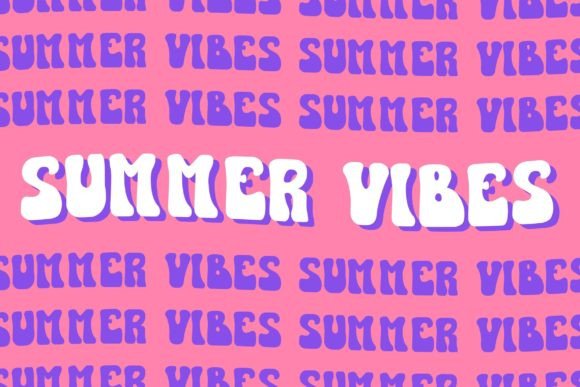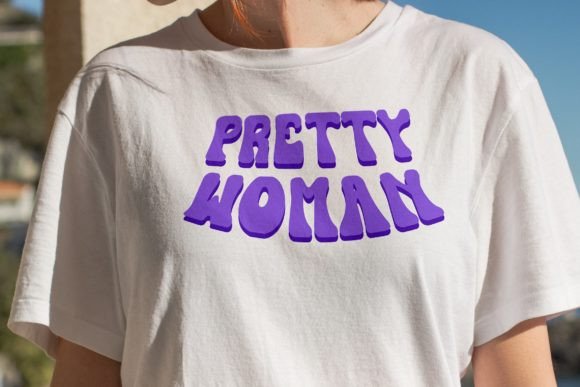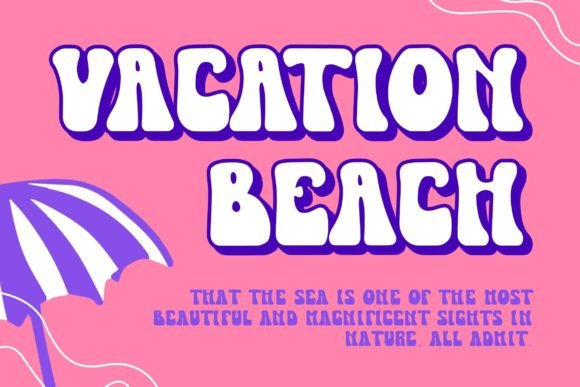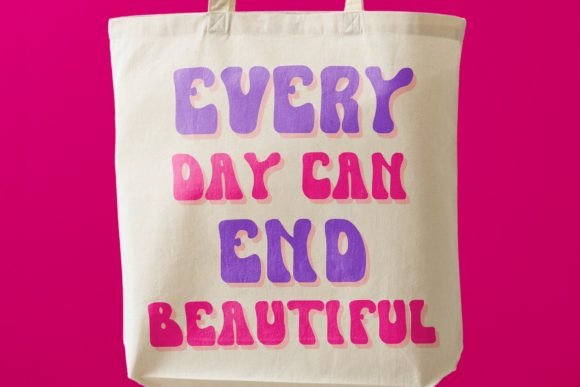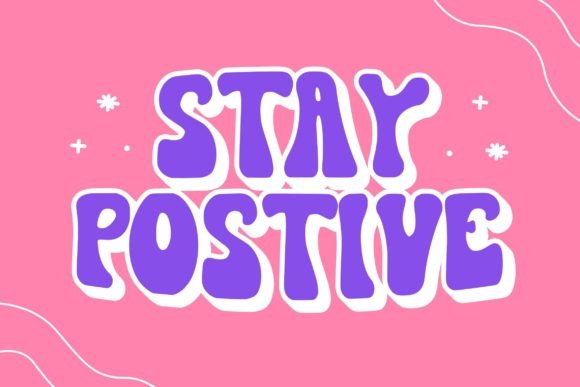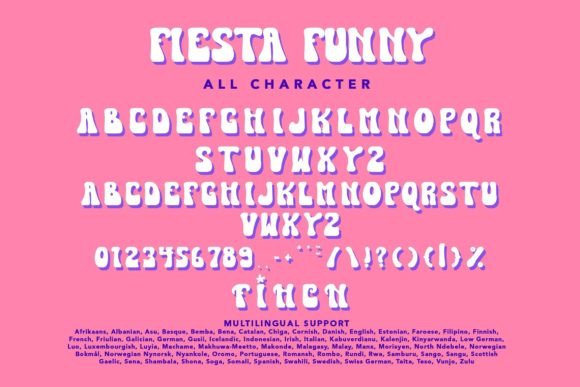
Introducing Fiesta Funny Font: The Groovy Retro Font Style for Your Creative Projects
Are you a designer or crafter looking for a unique and playful font to add a touch of personality to your projects? Look no further than Fiesta Funny Font, a groovy retro font style that’s perfect for a wide range of creative endeavors. With its distinctive handwritten characters, Fiesta Funny Font is sure to make your branding projects, logos, wedding designs, media posts, advertisements, product packaging, and more stand out from the crowd.
What Makes Fiesta Funny Font So Special?
Fiesta Funny Font is a one-of-a-kind font that’s been carefully crafted to bring a touch of whimsy and fun to your designs. Its handwritten characters are distinctive and full of personality, making it perfect for projects that need a bit of flair. Whether you’re working on a branding project, a wedding design, or a social media post, Fiesta Funny Font is sure to add a touch of playfulness and sophistication.
Fiesta Funny Font is incredibly versatile, making it perfect for a wide range of projects, including:
• Branding projects: Add a touch of personality to your brand with Fiesta Funny Font, perfect for logos, business cards, and more.
• Wedding designs: Make your wedding designs truly special with Fiesta Funny Font, perfect for invitations, stationery, and more.
• Media posts: Add a touch of fun and playfulness to your social media posts with Fiesta Funny Font.
• Advertisements: Make your ads stand out from the crowd with Fiesta Funny Font, perfect for print and digital ads.
• Product packaging: Add a touch of personality to your product packaging with Fiesta Funny Font.
• Product designs: Make your product designs truly special with Fiesta Funny Font, perfect for labels, tags, and more.
• Photography: Add a touch of whimsy to your photography with Fiesta Funny Font, perfect for watermarks and more.
• Invitations: Make your invitations truly special with Fiesta Funny Font.
• Stationery: Add a touch of personality to your stationery with Fiesta Funny Font.
Why Choose Fiesta Funny Font?
There are many reasons why Fiesta Funny Font is the perfect choice for your creative projects. Here are just a few:
• Unique and distinctive: Fiesta Funny Font is a one-of-a-kind font that’s sure to make your projects stand out from the crowd.
• Handwritten characters: The handwritten characters in Fiesta Funny Font add a touch of personality and whimsy to your designs.
• Versatile: Fiesta Funny Font is perfect for a wide range of projects, from branding and wedding designs to media posts and product packaging.
If you’re looking for a unique and playful font to add a touch of personality to your creative projects, look no further than Fiesta Funny Font. With its distinctive handwritten characters and groovy retro style, Fiesta Funny Font is perfect for a wide range of projects, from branding and wedding designs to media posts and product packaging. So why wait? Download Fiesta Funny Font today and start creating!